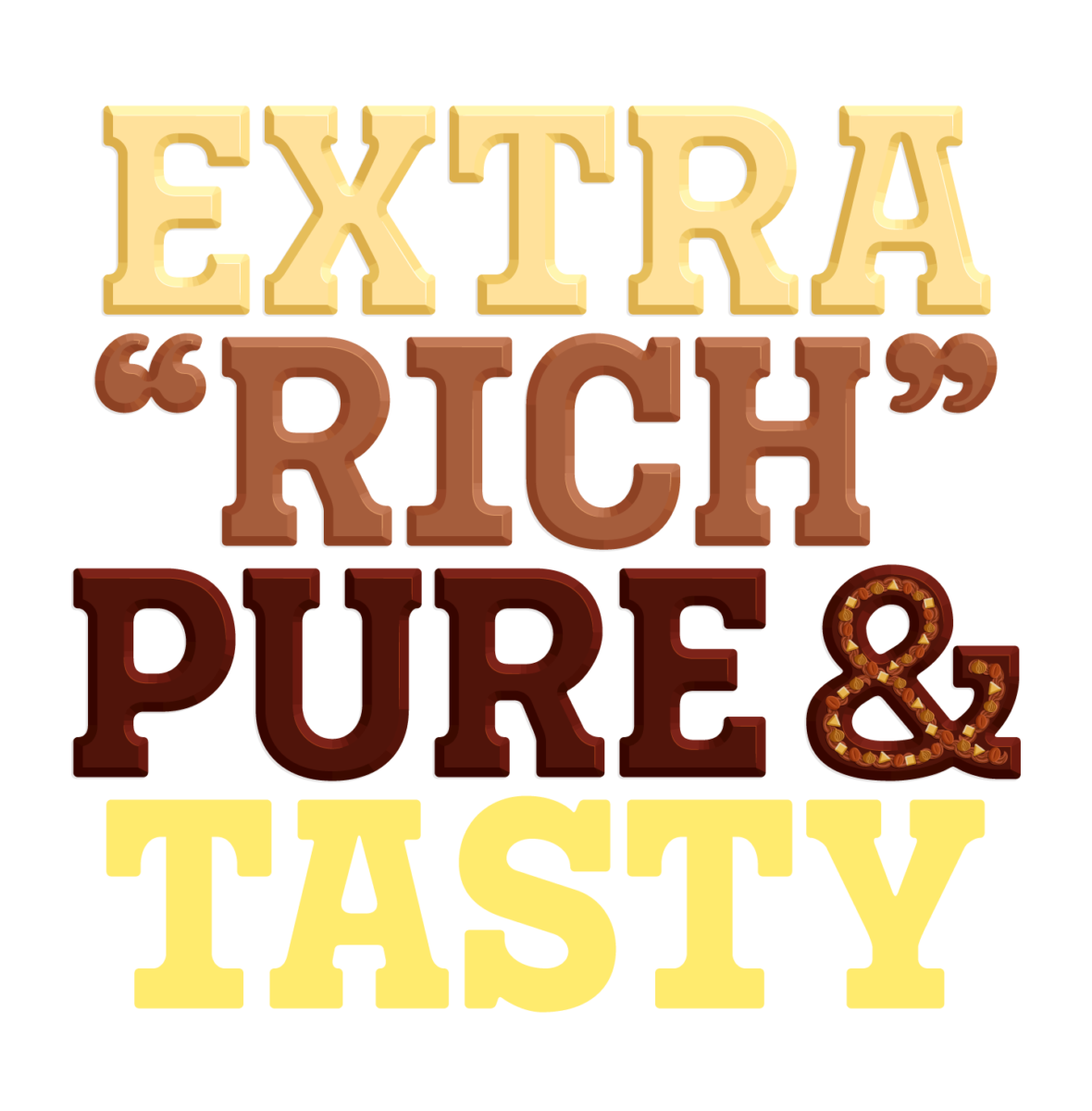
Typearture is a different type of foundry, creating fonts that merge concepts, culture, experiment and most importantly: a bit of humor through type design. In a world with so many geometric sans serif typefaces, there is surely room for adventure and fun!
A Typearture typeface tries to enrich the typographic world with a different take on what a typeface can or should be: The designs play with concepts, conventions of written language, and embed cultural references from Ancient Greece to the Noughties. The work of Typearture is a type of adventure, and explores all the possibilities that can be contained in a font-file.
Typearture typefaces can also be found at Futurefonts, the marketplace for cutting edge, in-progress fonts! Currently there are two typefaces in progress. Gimme: the toy-inspired type family, and Sugarshop: a sugar-sweet, candy inspired collection of typefaces.
Variable Fonts: You probably heard about them, you probably seen a few, but what can you really DO with them? Well, more than you think! Explore the possibilities in this small variable color font showcase and get inspired!
Variable color fonts bring the best of both worlds together: Variable Fonts and Color Fonts. So how can these fonts to enhance your typography, storytelling or call to actions? View this showcase with live examples, and get inspired!
Variable color fonts, how do they work? What can you do with them? Are they going to change the web? Well I don’t know all answers, but I’ll give you an initiation. Read more about them in this tiny guide and start creating them yourself!
Type your own castle with the Typearture Typeable Castle! This color font allows you to create your own stronghold using all your keystrokes, ranging from capitals to numerals.
It’s time to shuffle your deck, play your cards or fold your hand: All bets are off with the typographic ace that is LOWBALL, the playing card font. Part of the GIMME type family, Lowball pushes color font technology to its limits, transforming the well known deck of cards into a typographic workhorse.
View LowballTypearture: Typefaces by Arthur Reinders Folmer, is his adventure in type, creating type designs with a focus on conceptual, illustrative and ornamental typefaces.
The typefaces in the Typearture library are not just collections of glyphs, but typefaces that use the conventions of type design and written language to tell their stories. These stories are woven throughout the typefaces, connecting A to Z and the Lemniscate to Question mark. Each character has it’s place and meaning, making each keystroke a small tale in itself.